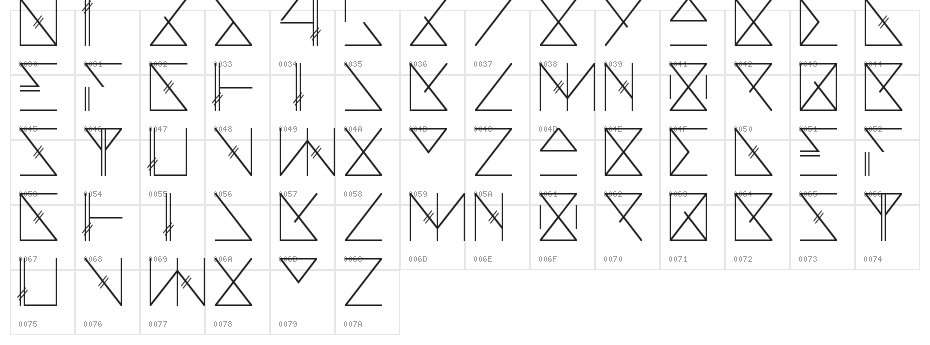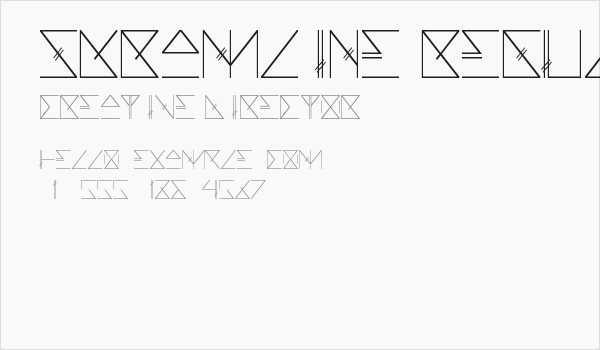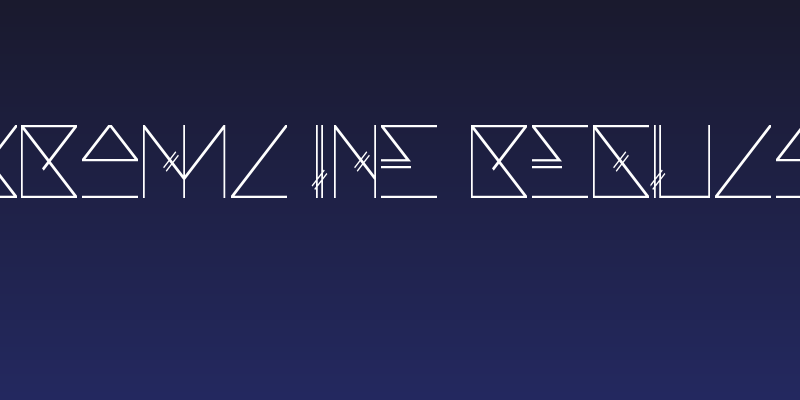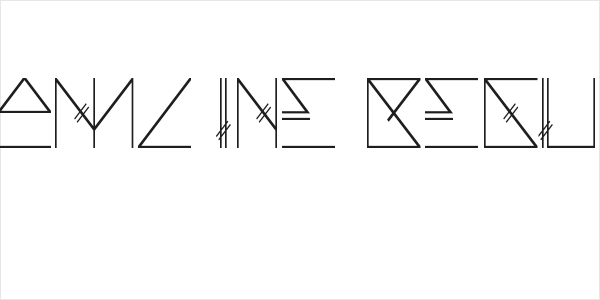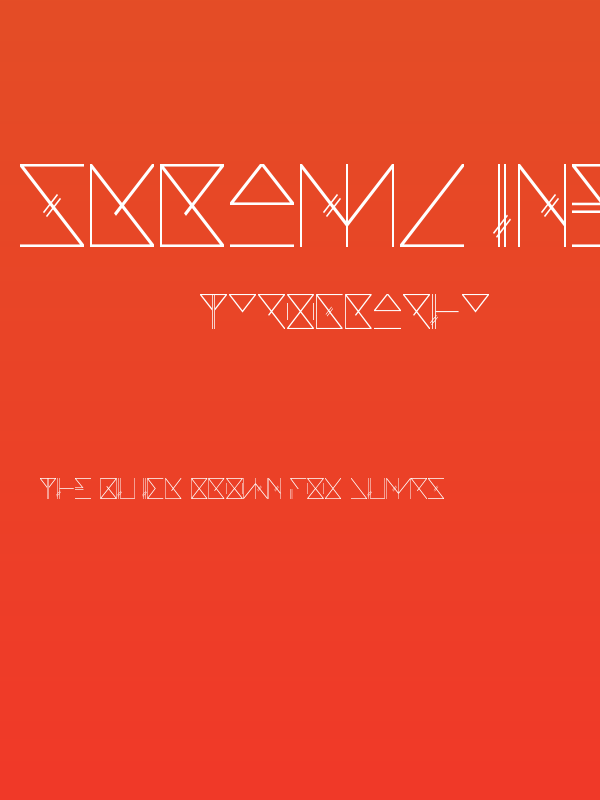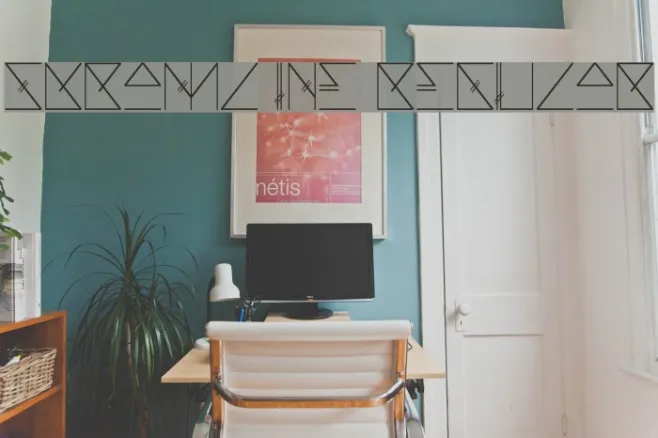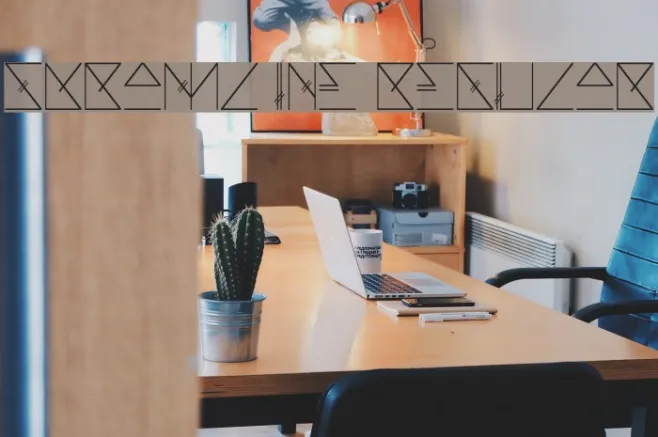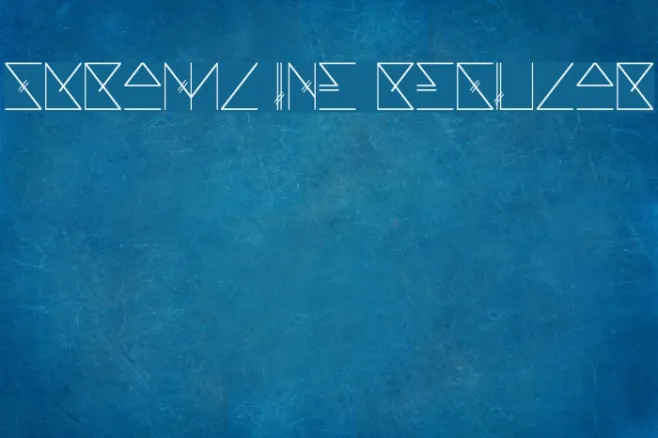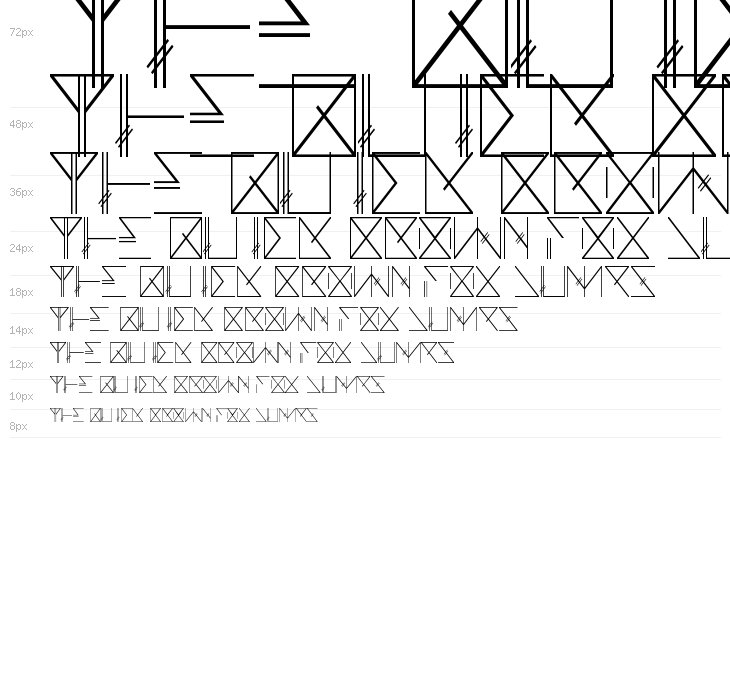
Skramline Regular Font
Skramline Regular Description
This font features a highly geometric and abstract design, characterized by its use of straight lines and sharp angles. Each character is constructed with a combination of horizontal, vertical, and diagonal strokes, creating a futuristic and technical appearance. The letters are distinct and stylized, with some incorporating triangular and rectangular shapes that intersect or overlap. This design gives the font a unique, almost cryptic aesthetic, making it stand out in any application. The uniformity in line thickness across characters contributes to a cohesive look, while the angular nature of the font adds a sense of dynamism and modernity.
| Use Case | Logos, Posters, Headlines |
| Proposed Projects | Ideal for sci-fi themed projects, modern art posters, tech branding, and digital media. |